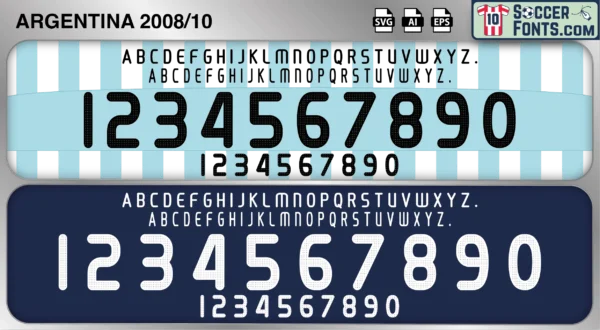
Argentina 2008-10 Font
The Argentina 2008-10 font is an editable soccer jersey lettering design in vector format inspired by the Argentina kit style used during the 2008-10 football seasons. This football font artwork is prepared for football shirt recreations, custom jersey projects, football kit mockups and sports graphic design workflows.
The 2008-10 period marked an important chapter in Argentina’s modern football history as the national team prepared for the 2010 FIFA World Cup in South Africa. The squad featured a blend of experienced leaders and emerging stars, including Lionel Messi, Carlos Tevez, Javier Mascherano, Sergio Agüero, Diego Milito and Gonzalo Higuaín. During this era, Argentina also celebrated success at youth level and the Olympic Games, reinforcing the country’s reputation for producing world-class football talent. The appointment of Diego Maradona as national team manager added another layer of attention and nostalgia to a period already filled with expectation and media interest.
The Argentina 2008-10 font became associated with the build-up to the first World Cup of the Messi era and one of the most discussed periods in Argentine football. Argentina shirts from this time remain highly recognizable among football shirt collectors because of their connection with Maradona’s return to the national team setup and the emergence of Messi as the nation’s leading football figure. The Argentina 2008-10 font reflects a period of transition, ambition and excitement as Argentina prepared for another attempt to reclaim football’s biggest prize on the world stage.